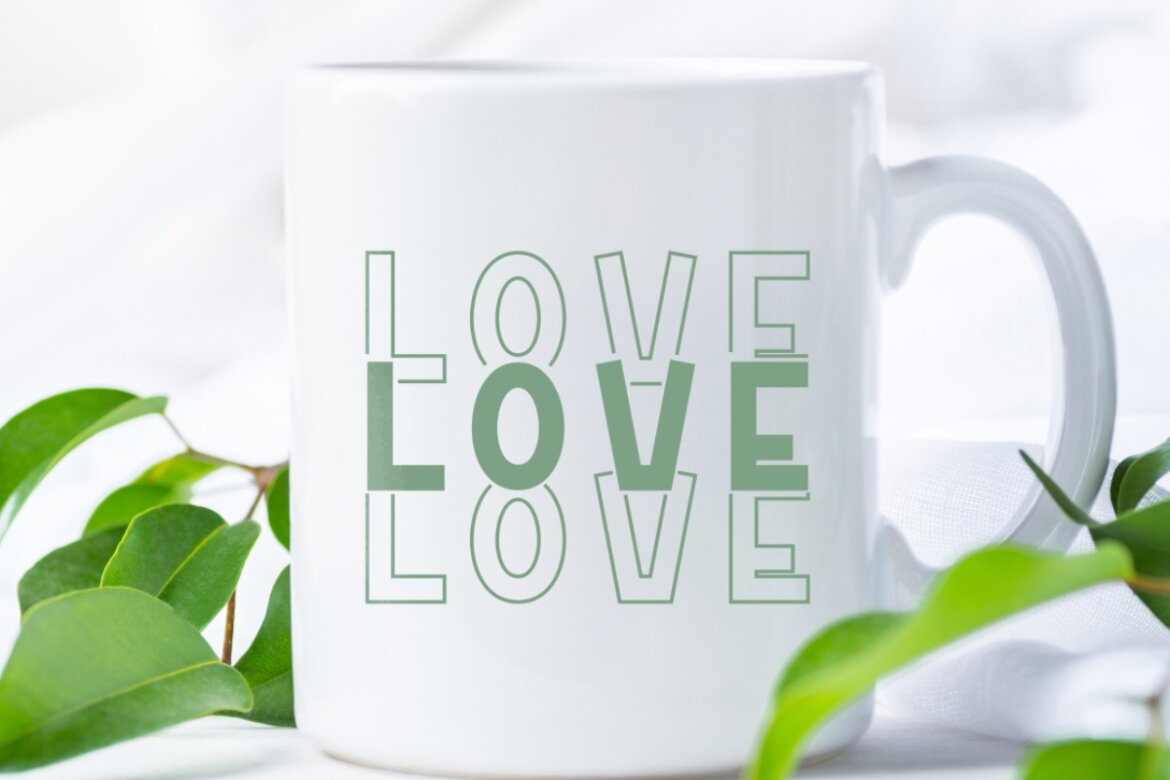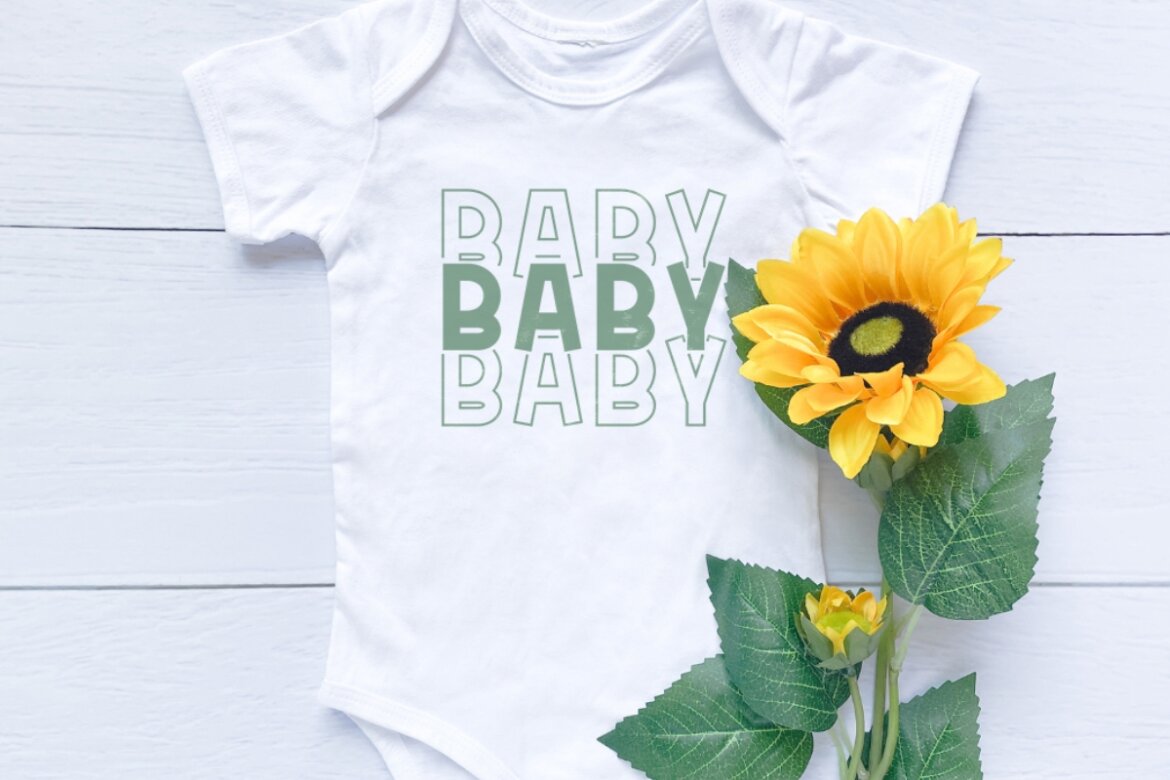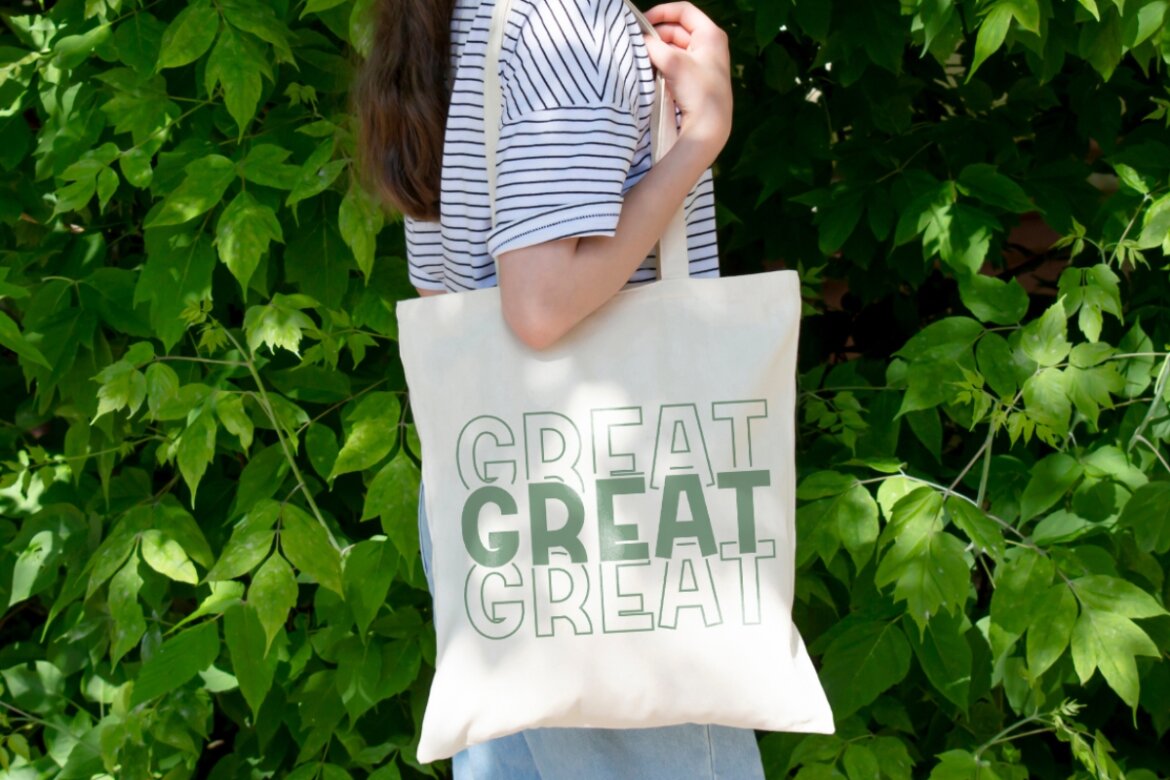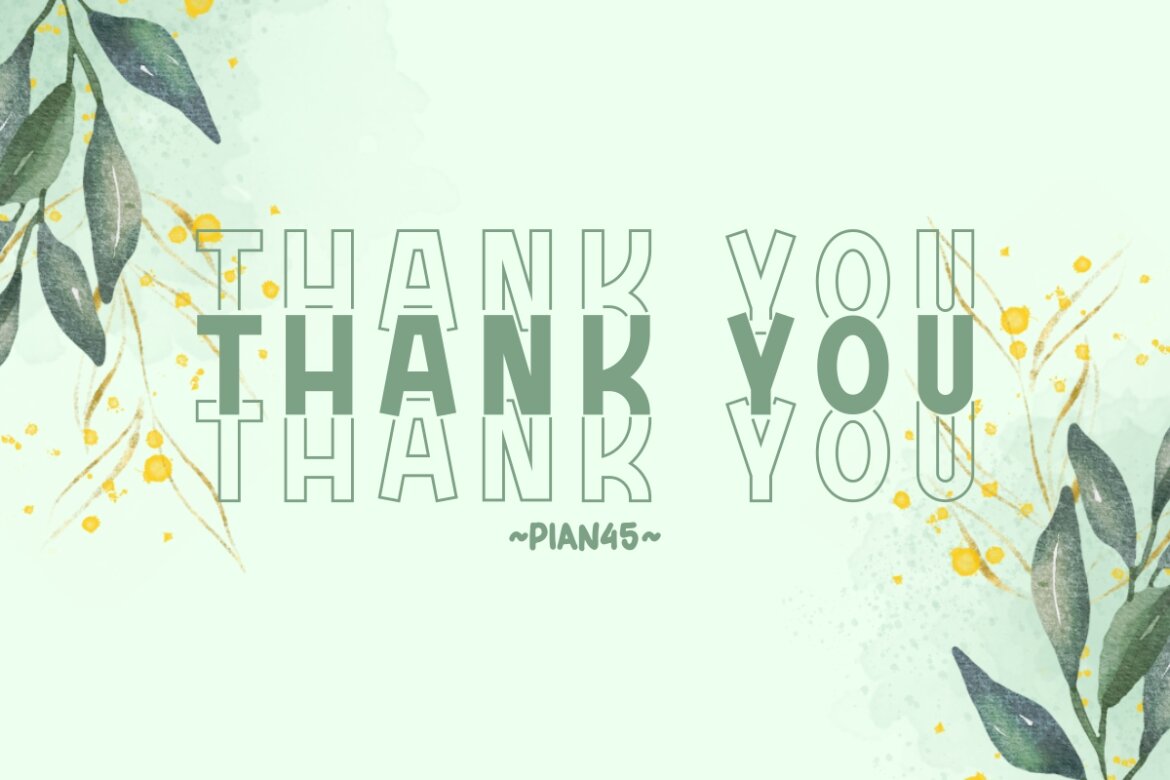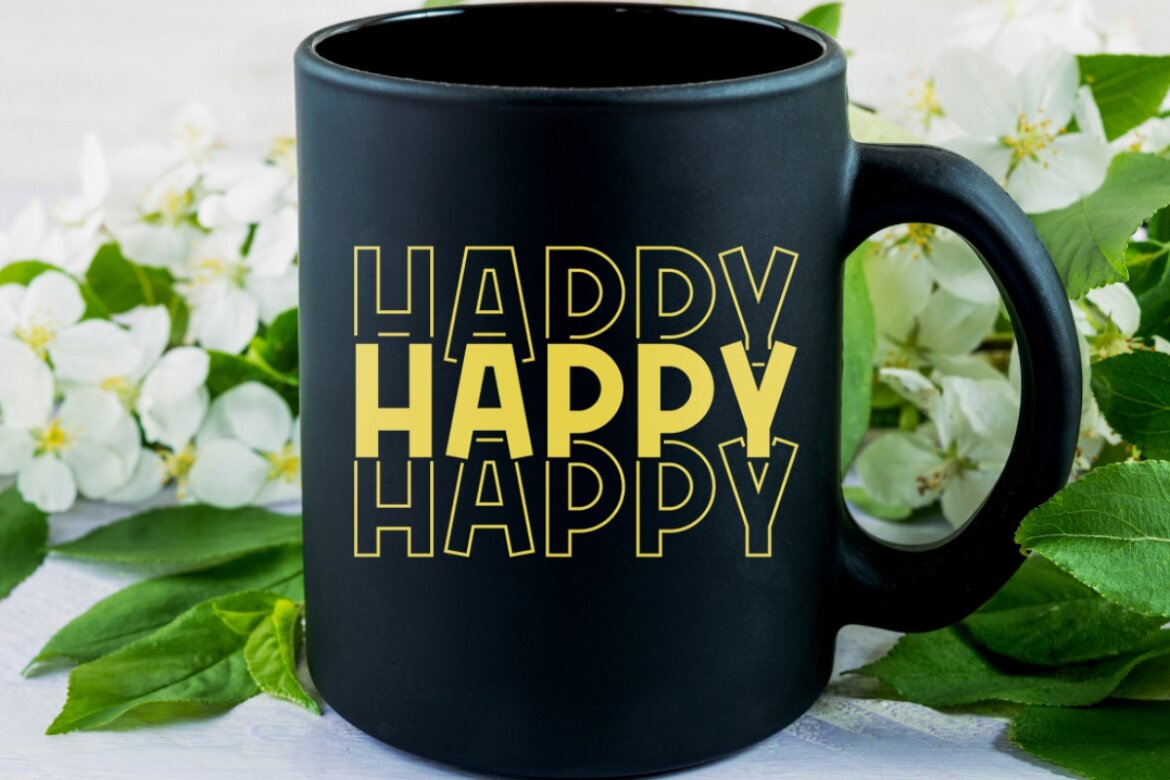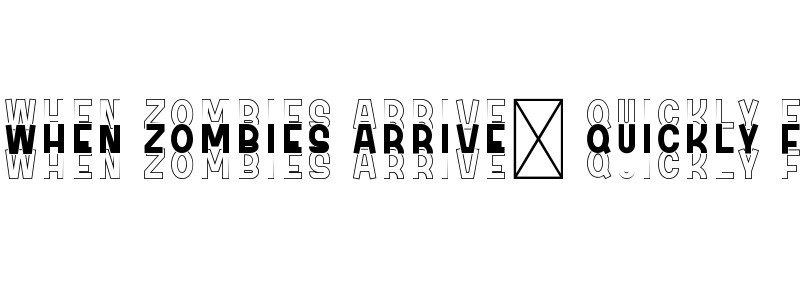
Spring - Stacked FREE Font
Spring Stacked
Spring is a fresh, clean, and beautifully decorative display font designed to evoke the gentle charm of the season. Its primary feature is the stacked (solid and outline) style, offering a sweet, layered look that is perfect for lighthearted and artistic projects. The rounded, all-caps letterforms are ideal for invitations, seasonal greeting cards, nursery decor, crafting, and light feminine branding. Spring adds a touch of delicate playfulness and creative depth to headlines, making it a standout choice for designs that require a gentle, visually interesting, and cheerful aesthetic.
• automatic layering: includes both solid and outline fonts for effortless, professional-looking stacked designs and visual depth.
• creative versatility: allows designers to switch between solid, outline, or stacked versions for maximum design flexibility.
• seasonal charm: instantly creates a fresh, lighthearted, and cheerful mood ideal for spring and nature-themed projects.
• soft & engaging: the rounded style ensures the font is inviting, clear, and highly attractive for visual branding.